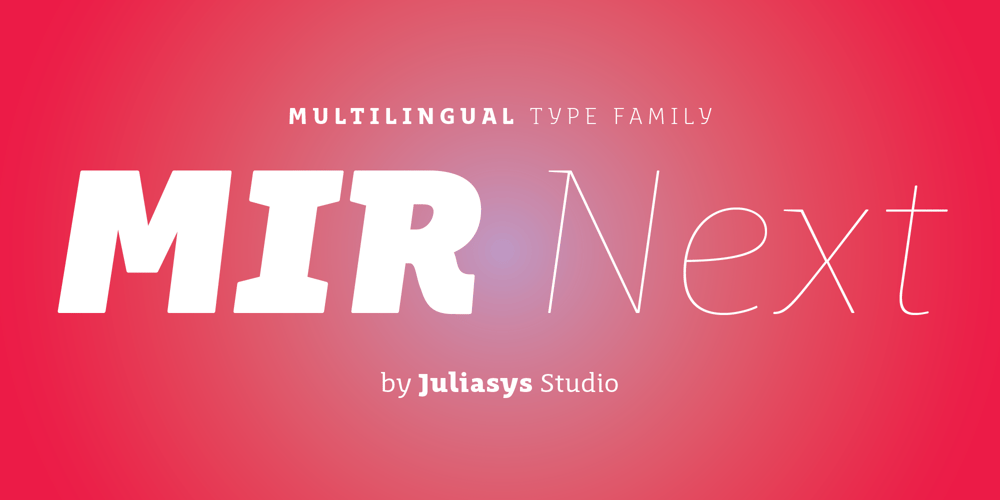
MIR Next Font Family was designed by Julia Sysmäläinen and published by Juliasys. MIR Next contains 20 styles and family package options. MIR Next is a growing multi-script type family best described by the terms “humanist–semi–slab-serif”. Its character set contains Latin and Cyrillic, both extended, as well as Greek, covering more than 100 languages. Strong personality along with consistency between language systems were a basic aim when designing the family. As a result MIR has become a great tool for branding and international identities. A wide choice of symbols and numbers makes it also very useful for statistics, texts about mathematics and the sciences. Serious things are best be said in an unpretentious, relaxed way. MIR gives typography exactly that kind of appearance. Its texts emit a sense of authority but stay easily accessible at the same time.MIR’s name comes from the old Russian word Мир meaning both “world” and “peace” – a unity we will hopefully take for granted sometime in the future.